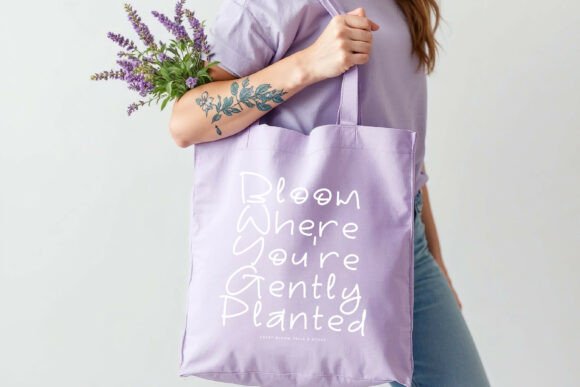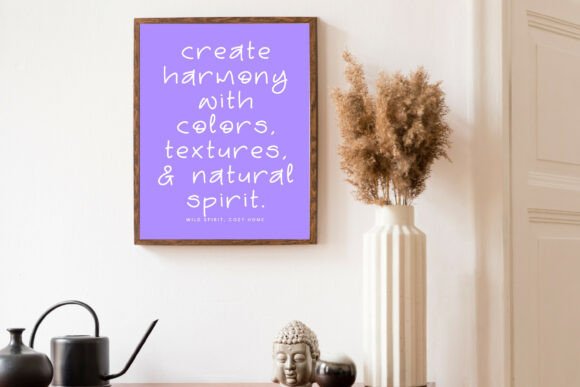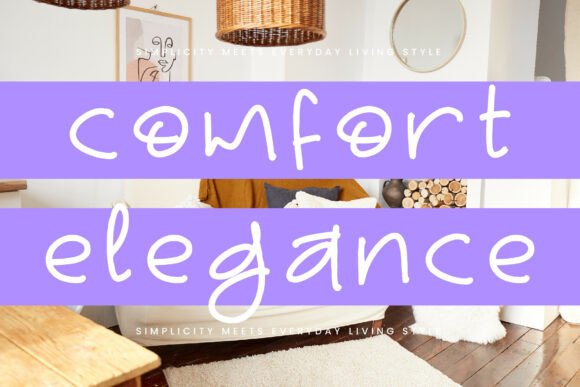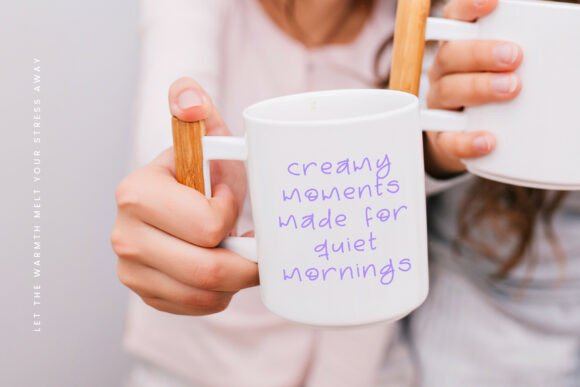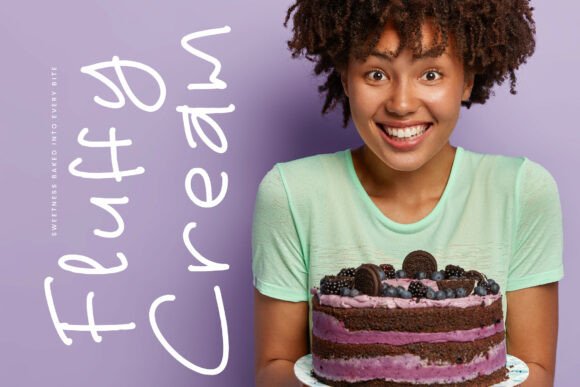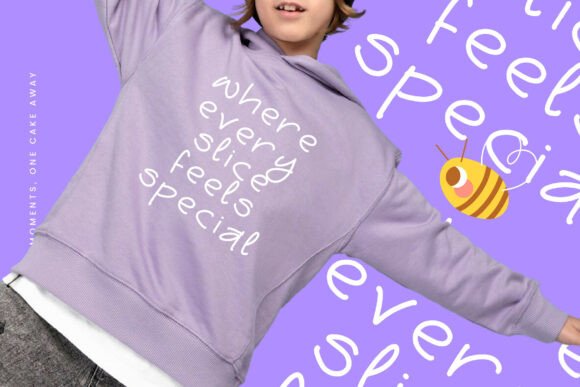
Cosmic Imagined Regular Font: A Designer’s Dream Come True
Have you ever been in the middle of a design project, and suddenly, you’re stuck on finding the perfect font? I recall a recent experience where I was working on a branding project for a luxury homeware brand. The client wanted a font that exuded elegance, sophistication, and a touch of playfulness. After hours of scouring through font libraries, I stumbled upon Cosmic Imagined – a beautifully designed handwritten font that blended playful curves with a premium feel. In this article, I’ll share my experience with Cosmic Imagined, its features, and how to make the most of it in your designs.
A Personal Review of Cosmic Imagined
What I Love About Cosmic Imagined ✨
- ✨ Elegant and sophisticated handwritten style
- ✅ Perfect for luxury branding, packaging, and designs
While Cosmic Imagined is an excellent font, there are a few minor limitations to consider:
- ⚠️ Some users might find the font a bit too ornate for certain projects
- 🤔 Limited use of uppercase letters, which might not be ideal for all designs
The Backstory of Cosmic Imagined
Imagine a world where typography knows no bounds. A world where elegance and playfulness come together in perfect harmony. That’s the world of Cosmic Imagined. Designed with the creative designer in mind, Cosmic Imagined is the brainchild of a team of typographers who sought to create a font that would inspire and elevate designs. With its unique blend of curves and lines, Cosmic Imagined is a font that will transport your designs to new heights.